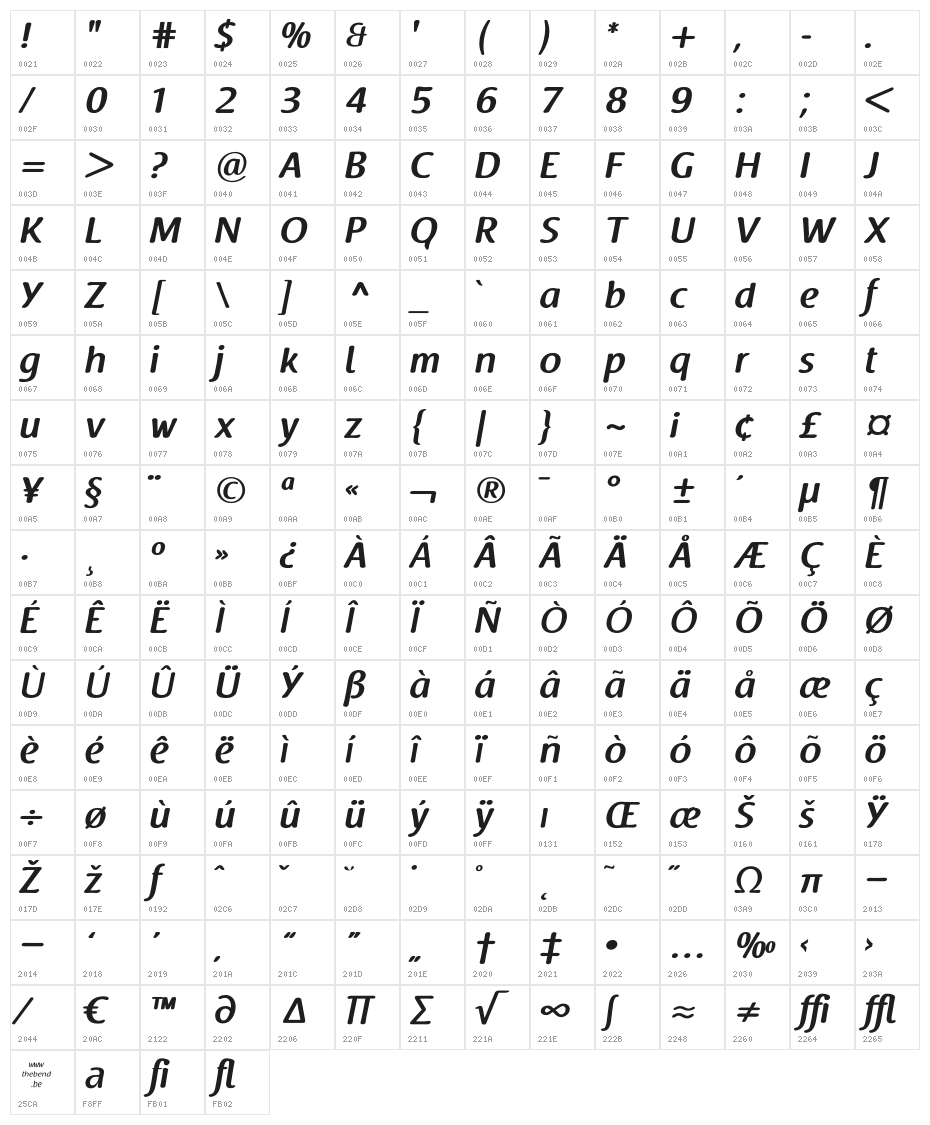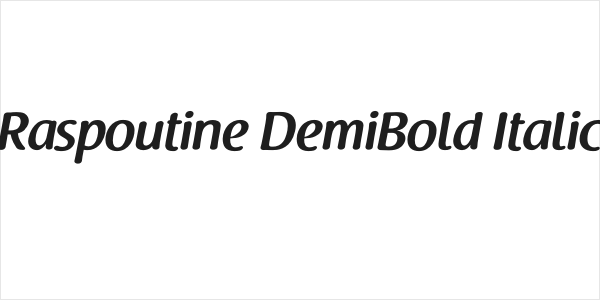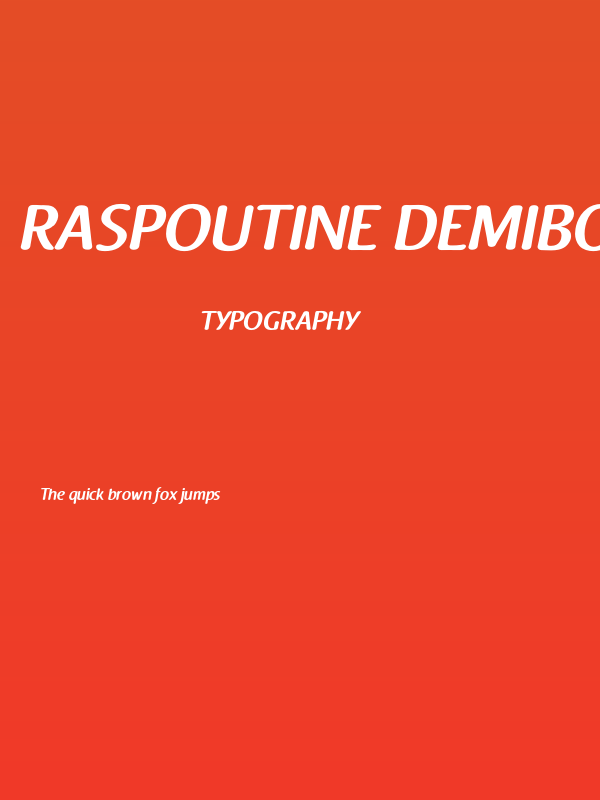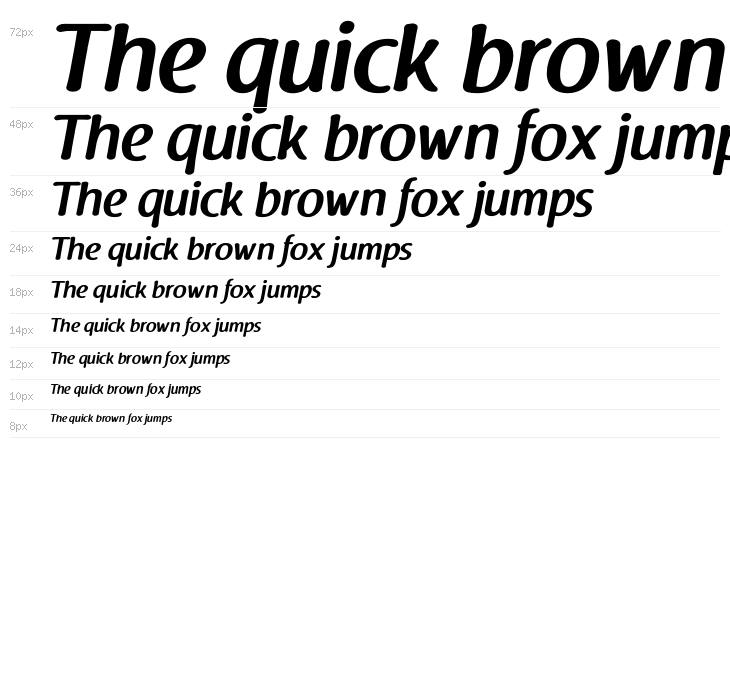
Raspoutine DemiBold Italic Font
Raspoutine DemiBold Italic Description
This font features a dynamic and fluid style with a slight slant, giving it an italicized appearance. The characters are bold and have a consistent stroke width, providing a strong presence on the page. The uppercase letters are well-proportioned, while the lowercase letters exhibit a smooth, rounded form that enhances readability. The numerals are clear and distinct, matching the overall boldness of the alphabet. Special characters are included, maintaining the same stylistic coherence. This font is versatile, suitable for both digital and print media, and can be used to convey a sense of modernity and elegance.